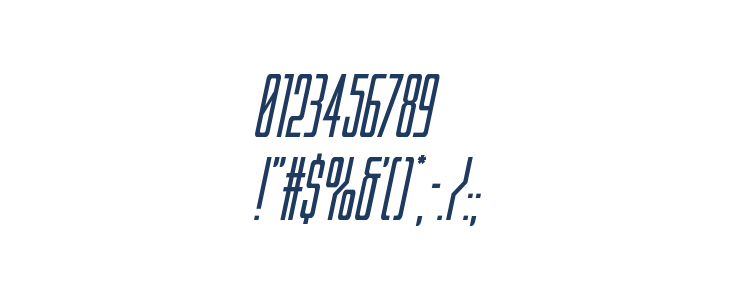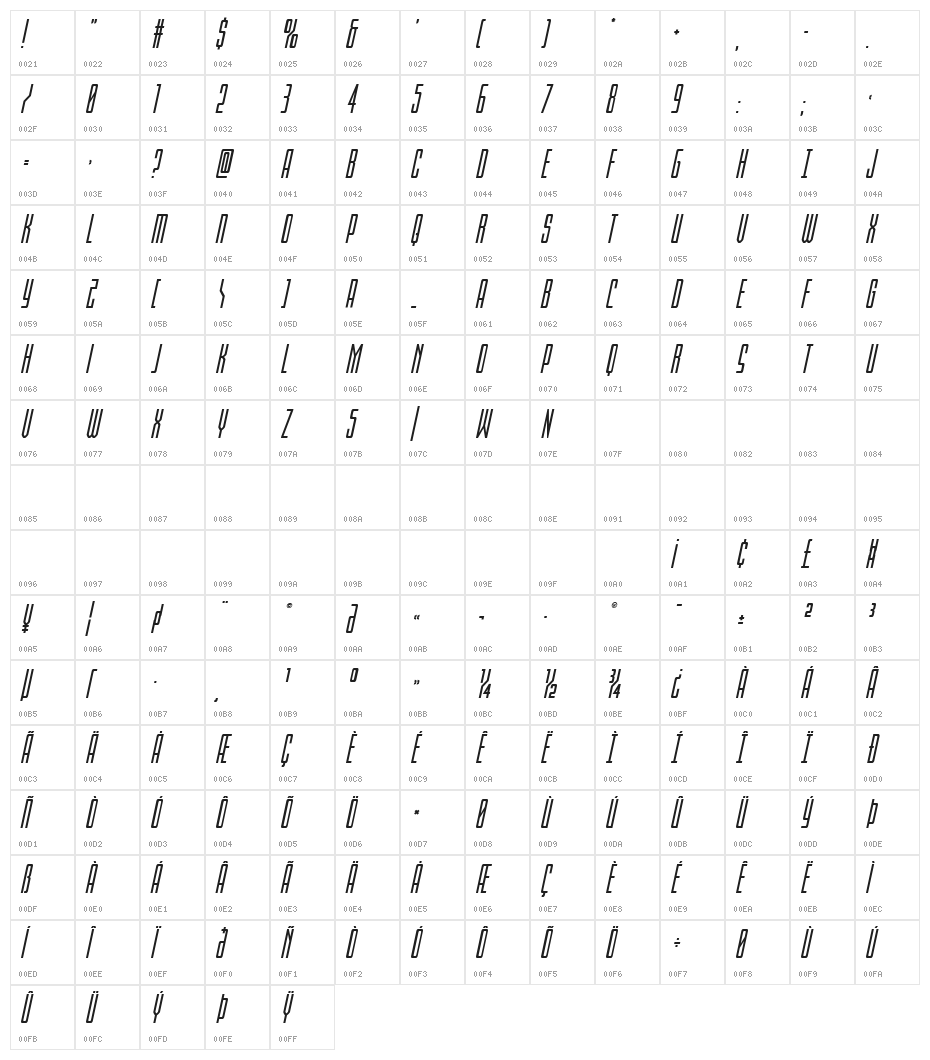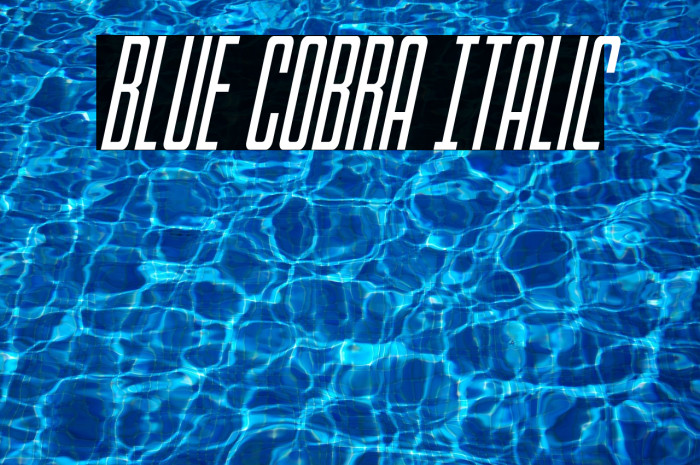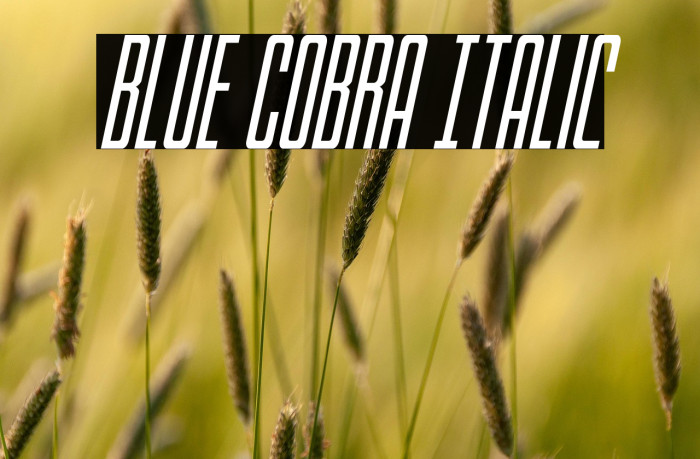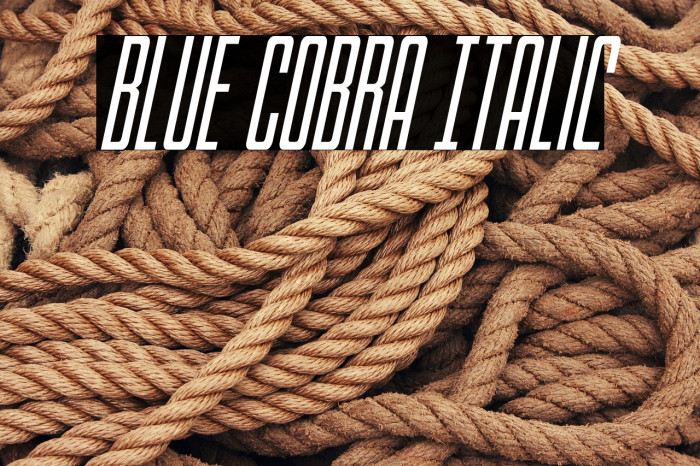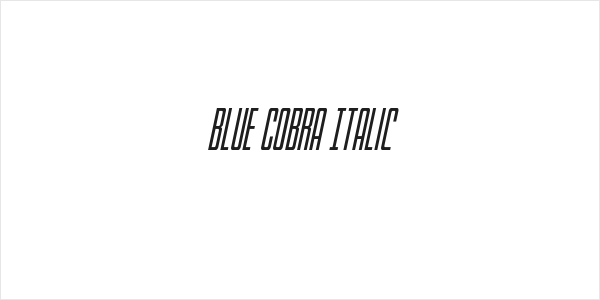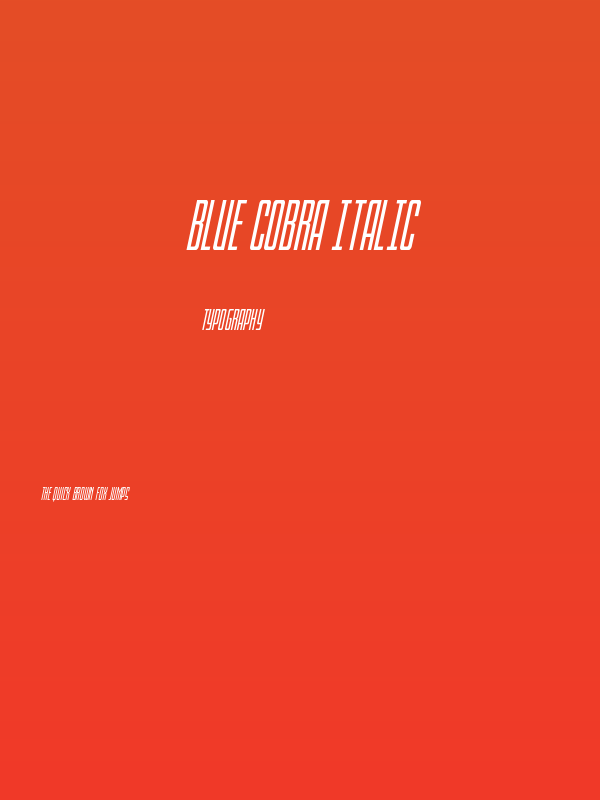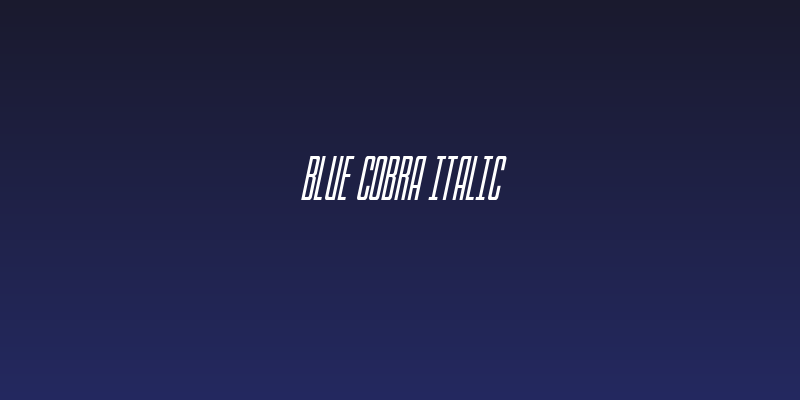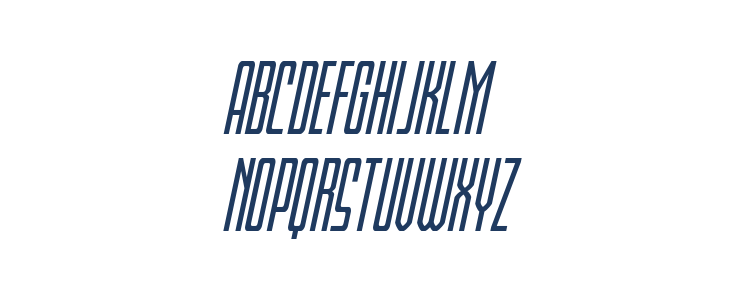
Blue Cobra Italic Font
Blue Cobra Italic Description
This font features a dynamic and sleek italic style, characterized by its elongated and narrow letterforms. The characters are sharply defined with a consistent slant, giving a sense of motion and speed. The uppercase and lowercase letters maintain a uniform height, while the numerals and special characters are designed to complement the overall aesthetic. The font's angular edges and clean lines contribute to its modern and edgy appearance, making it suitable for projects that require a bold and impactful visual statement.
| Proposed Projects | Ideal for sports branding, automotive designs, dynamic posters, and modern advertising campaigns. |